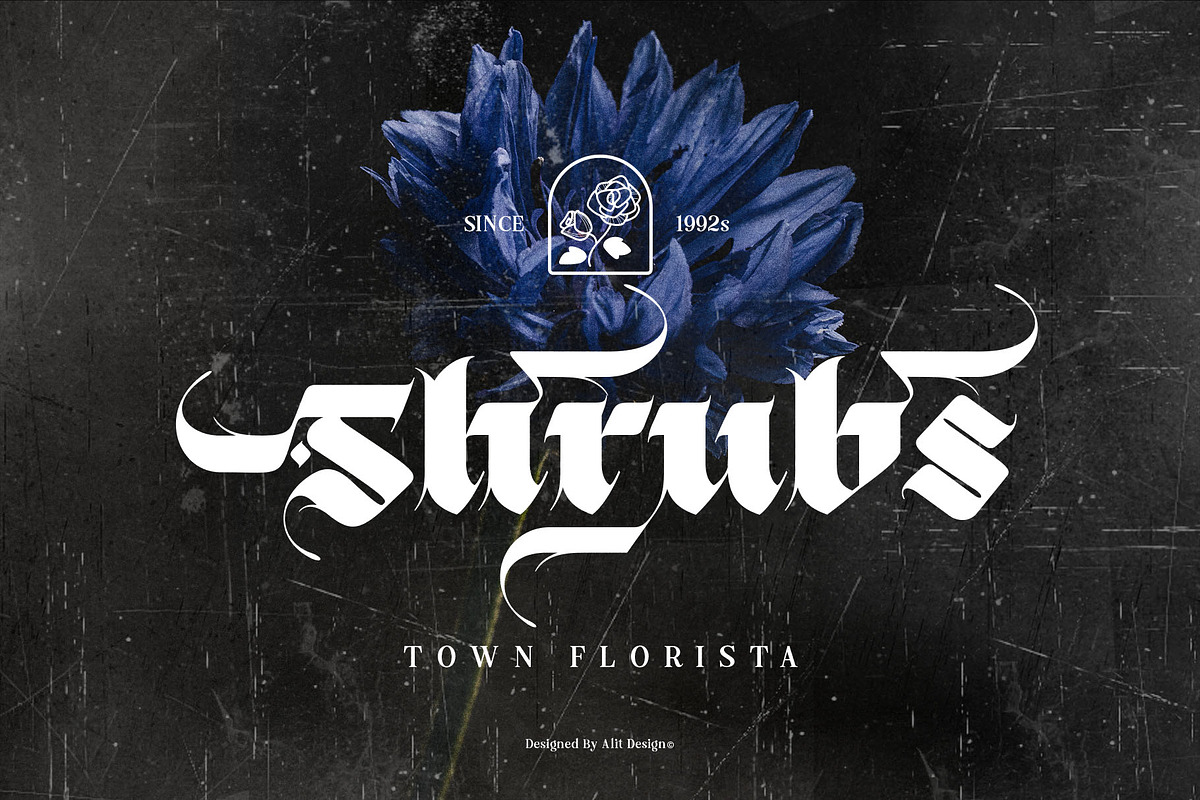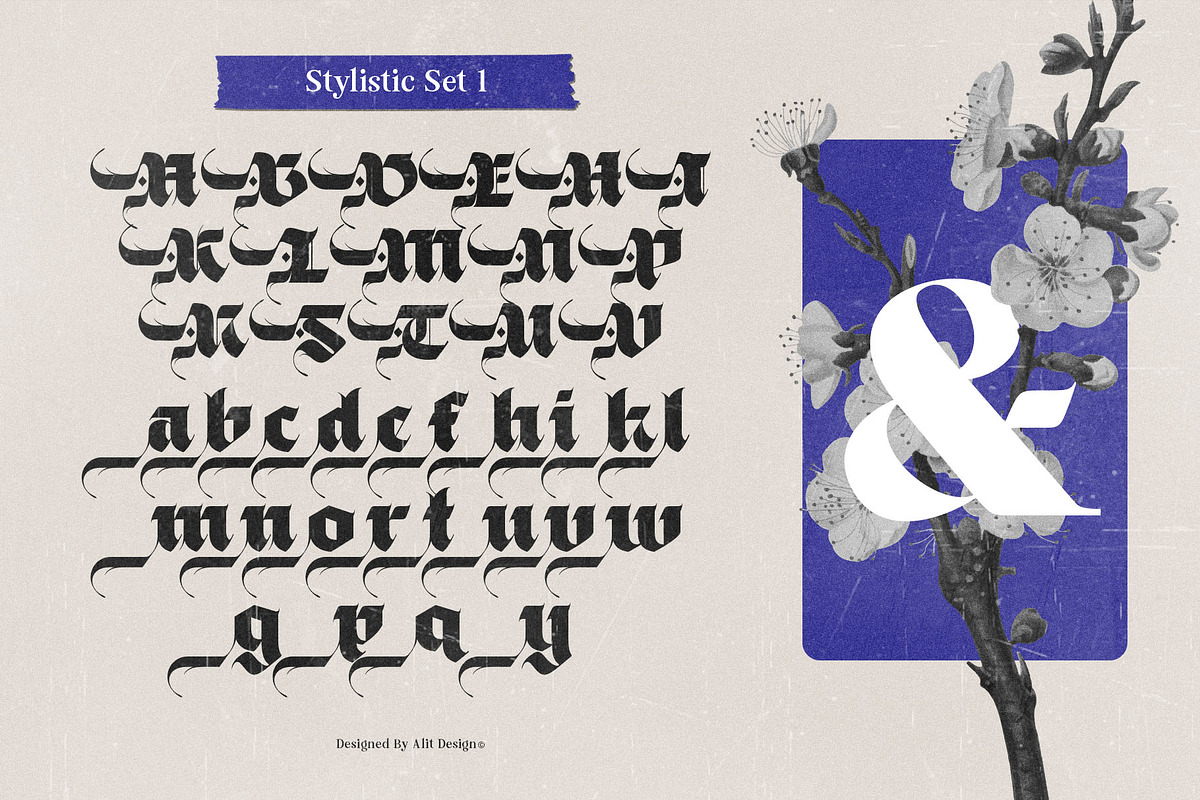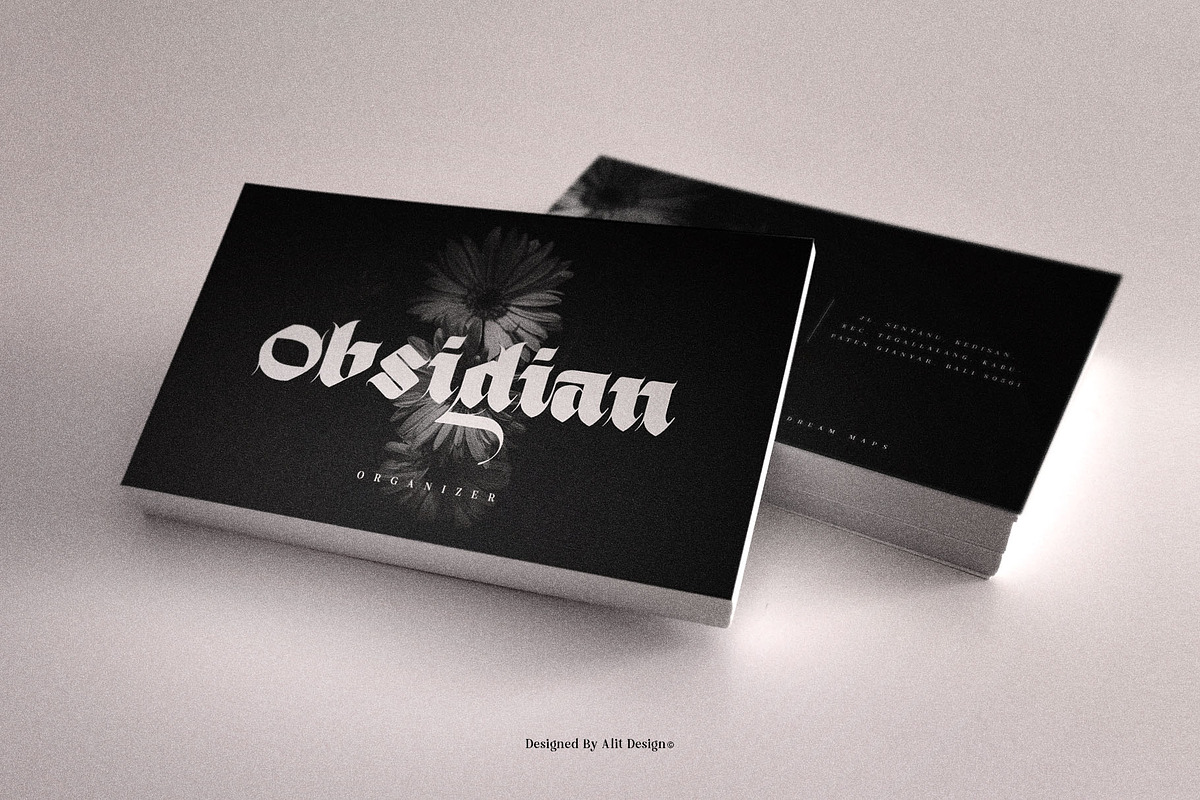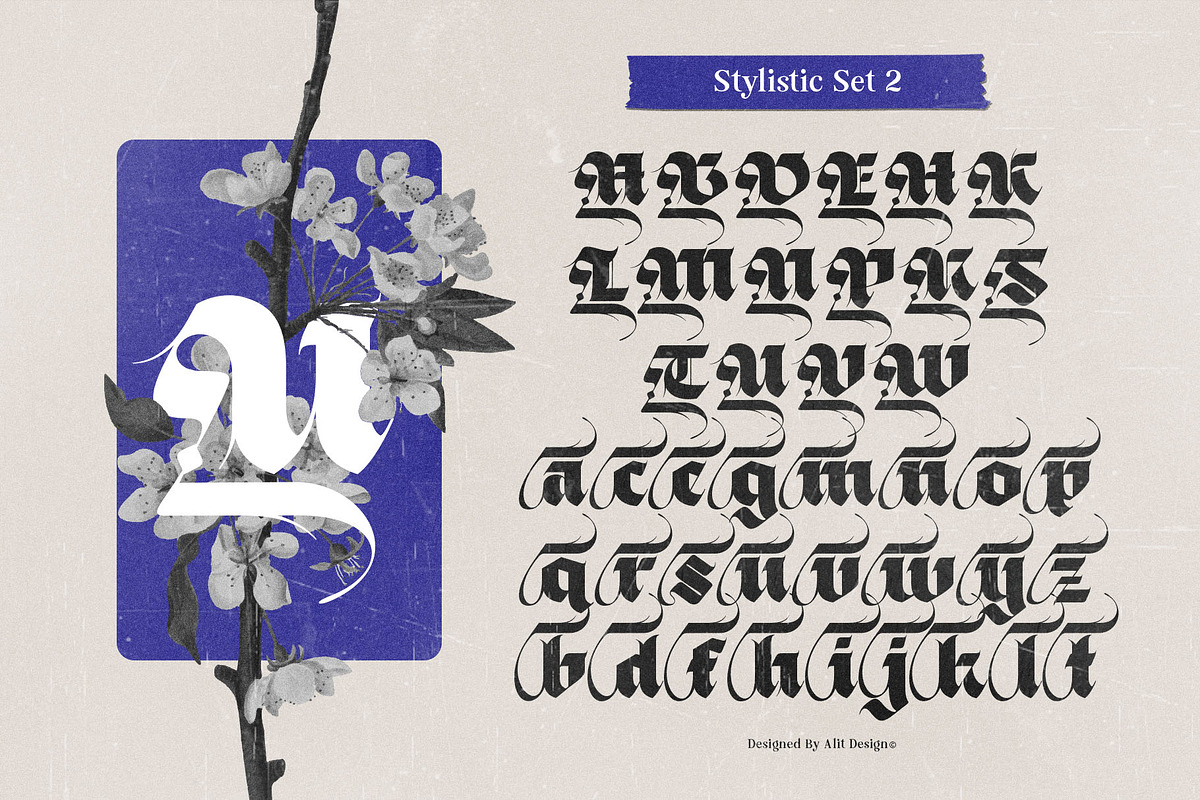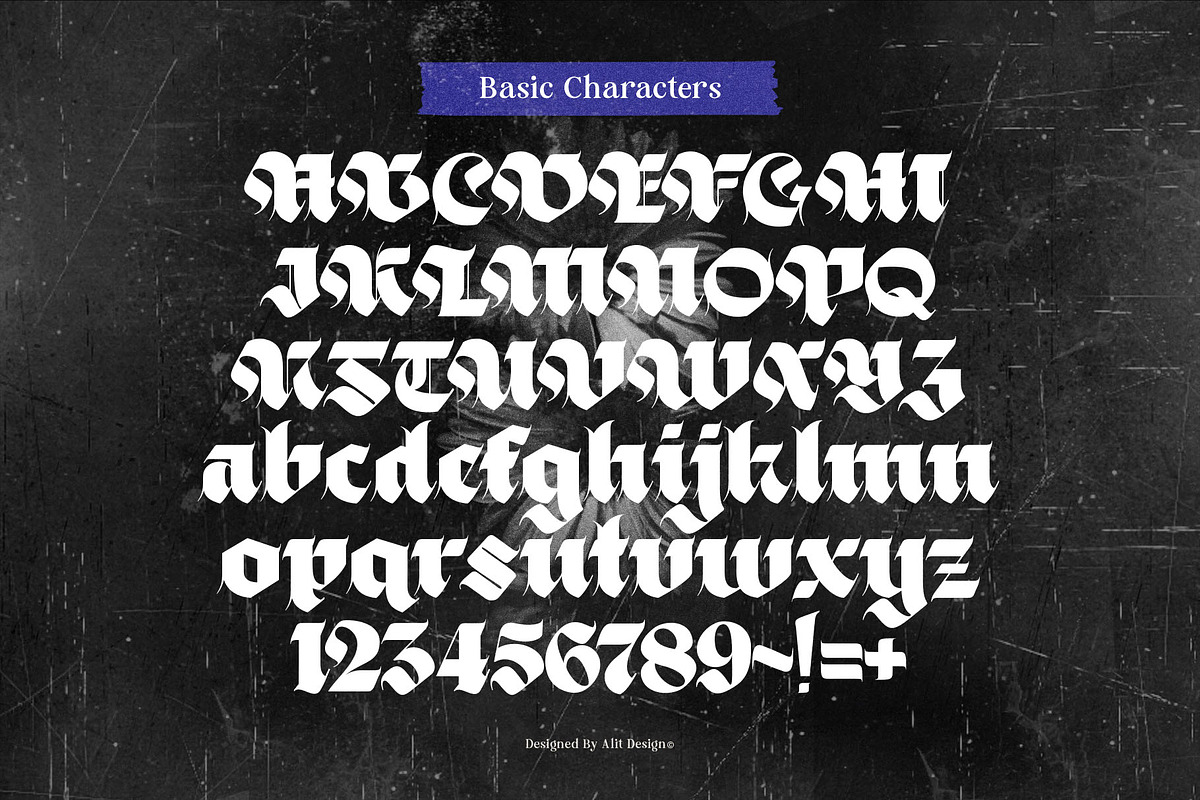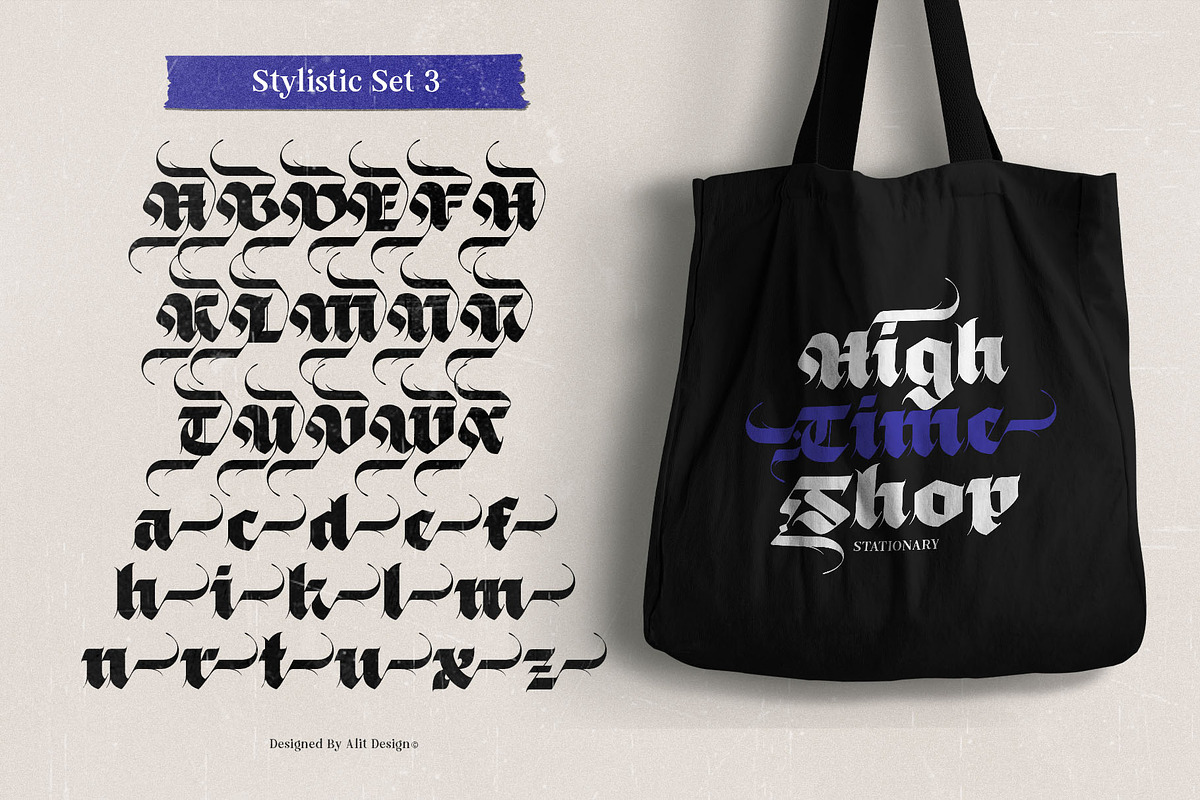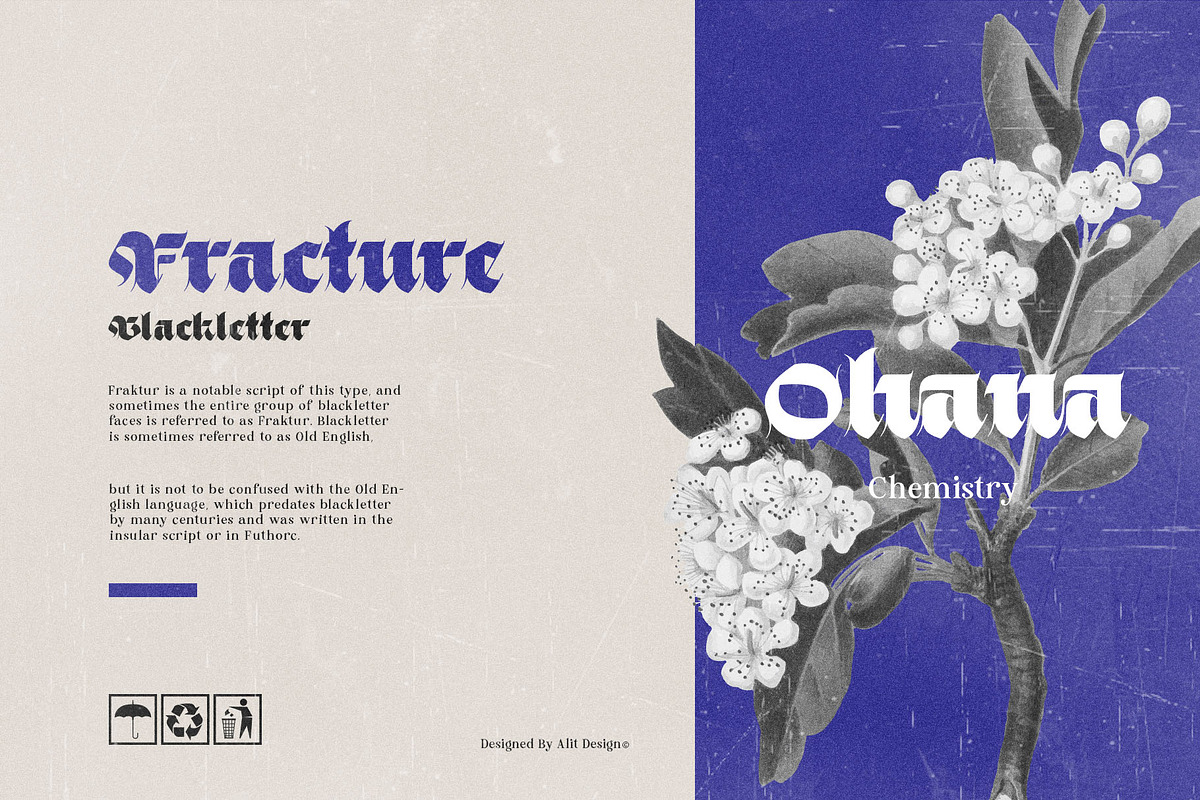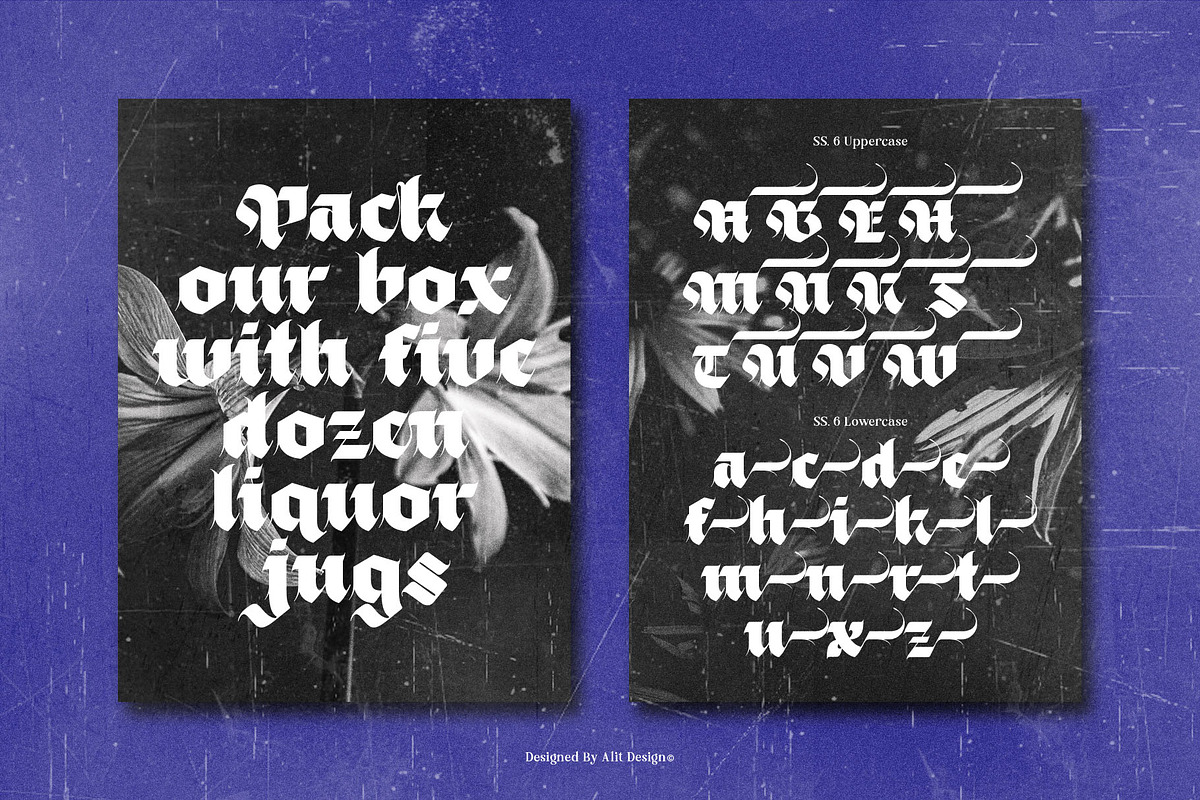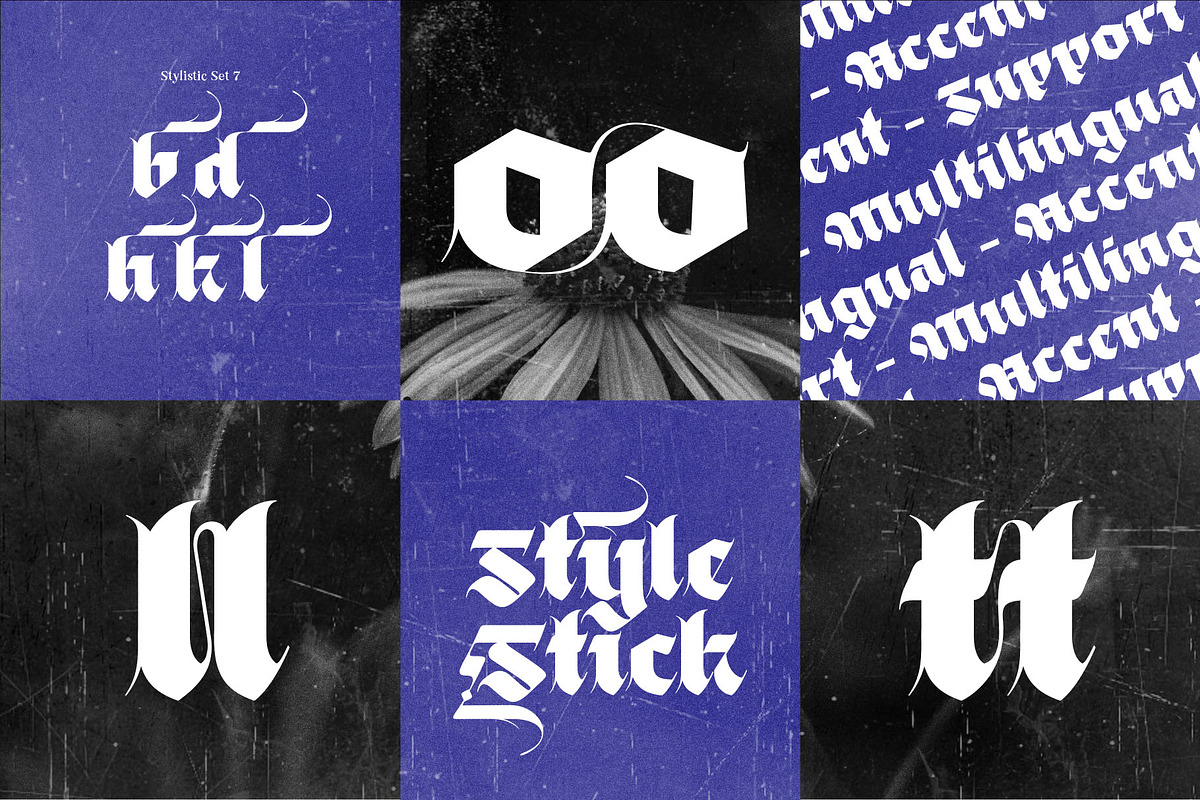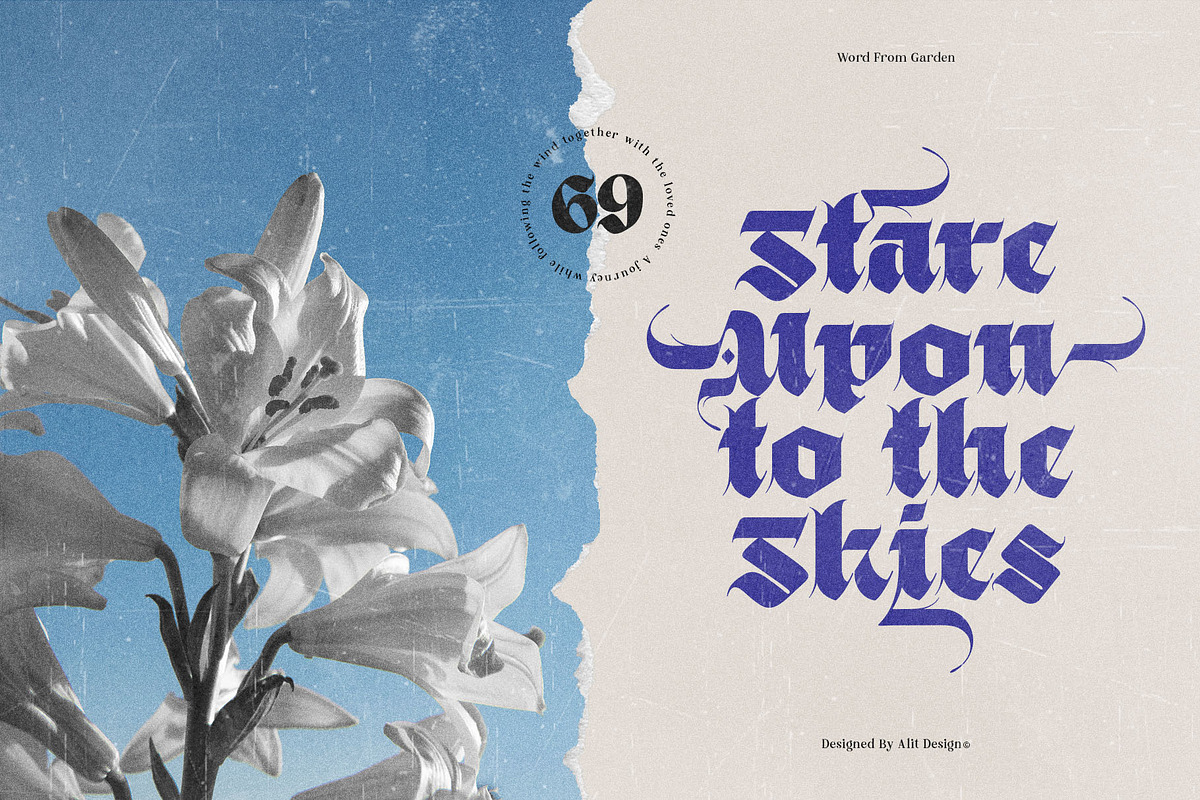
Black Obesity Blackletter Font
Introducing the epitome of boldness and grandeur in typography – Black Obesity! With its heavy fat Blackletter style, this font commands attention and exudes unparalleled strength in every stroke.
🖋️ Crafted with meticulous detail, Black Obesity is designed to make a statement. Its robust characters demand to be seen, leaving a lasting impression on any project or design.
🎨 Whether you're creating eye-catching posters, powerful headlines, or striking logos, Black Obesity adds a touch of sophistication and dominance to your work.
✨ Elevate your designs to new heights with Black Obesity – where elegance meets intensity in every letter. Stand out from the crowd and make a lasting impact with this majestic font today!